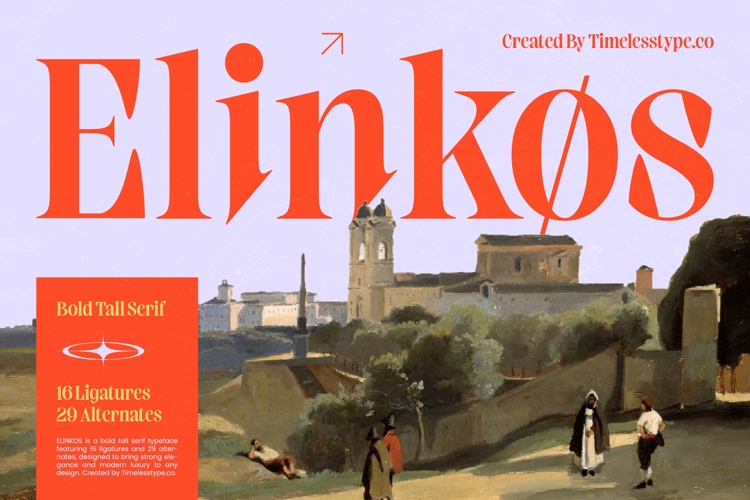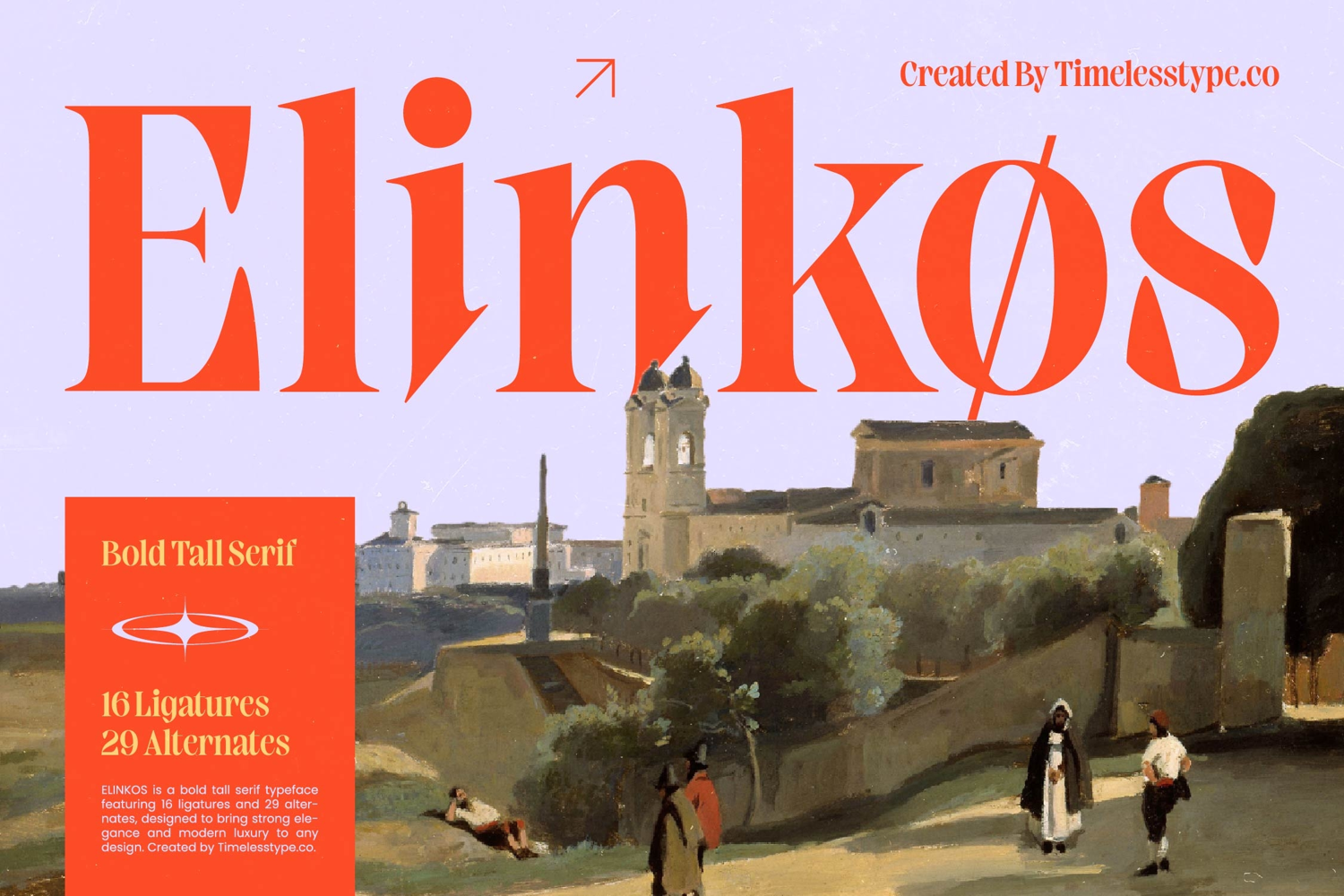
Elinkos - Bold Tall Serif
Elevate your visual identity with a typeface that defines modern sophistication. Elinkos - Bold Tall Serif is a masterclass in high-contrast design, blending strong elegance with a commanding presence. Its elongated letterforms and sharp serifs create a striking silhouette that demands attention while maintaining an air of refined luxury. This bold tall serif is engineered for those who seek to bridge the gap between classic craftsmanship and contemporary minimalist aesthetics.
Precision-engineered for high-impact visual storytelling, this font is the ultimate tool for premium creators. Elinkos - Bold Tall Serif is perfect for luxury branding, editorial design, and high-end packaging. Whether it is utilized for a fashion magazine masthead, a sophisticated logotype, or bold advertising headlines, its tall stature ensures maximum legibility and style. It excels in environments where visual hierarchy and a sense of prestige are paramount, making it an essential asset for any professional design toolkit.
Unleash limitless creativity with a comprehensive suite of typographic features designed for global reach. This typeface boasts 16 unique ligatures and 29 stylistic alternates, allowing designers to customize every word for a truly bespoke feel. With its extensive multilingual support, Elinkos - Bold Tall Serif adapts seamlessly across global markets, making it incredibly versatile for international projects. This ensures that your brand message remains consistent and powerful, regardless of the linguistic landscape or geographic location